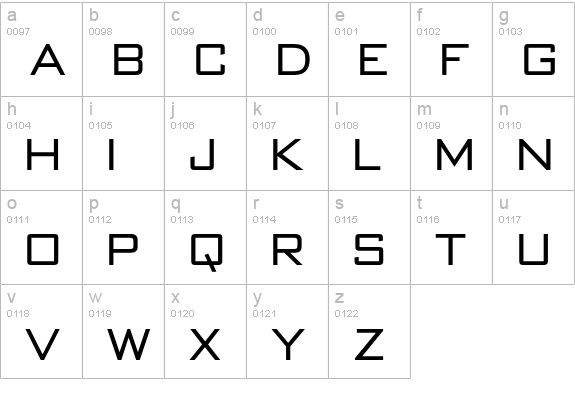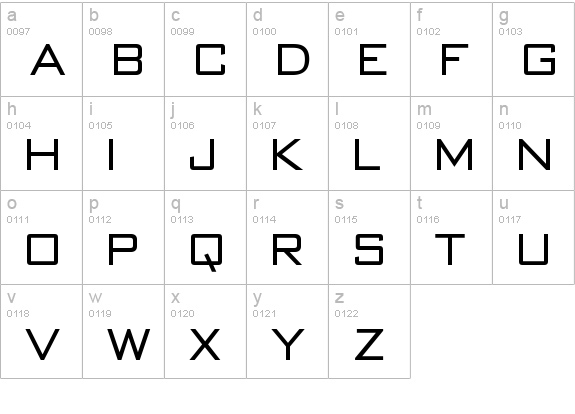
OPTIBankGothic-Light Font Details
OPTIBankGothic-Light is a refined, elegant variant in the OPTIBankGothic typeface family \xE2\x80\x94 well suited to elegant body text, refined sub-headings, and luxury branding.
OPTIBankGothic-Light is a sleek and modern font that exudes professionalism and sophistication. Its clean lines and elegant design make it perfect for a wide range of projects, from business presentations to creative designs. The light weight of the font adds a touch of elegance and refinement to any text, making it a versatile choice for both print and digital media. What makes OPTIBankGothic-Light even more appealing is that it is available for free download at FontsMarket.com. This means that you can easily access this high-quality font without having to spend a dime. Whether you are a designer looking for a new typeface to add to your collection or a business professional in need of a polished font for your next project, OPTIBankGothic-Light is the perfect choice. Download it today and elevate your designs with this stylish and sophisticated font.